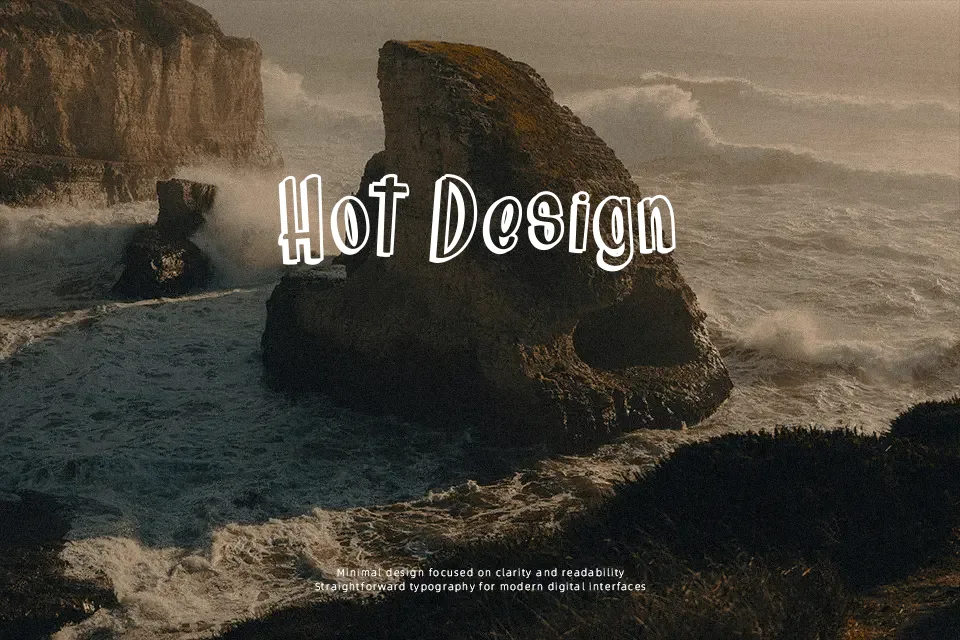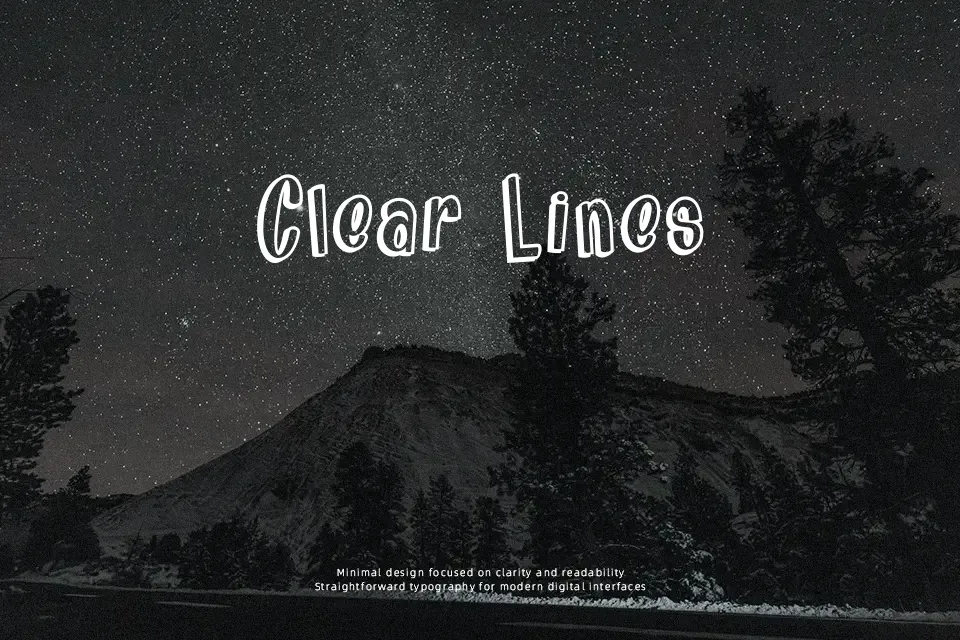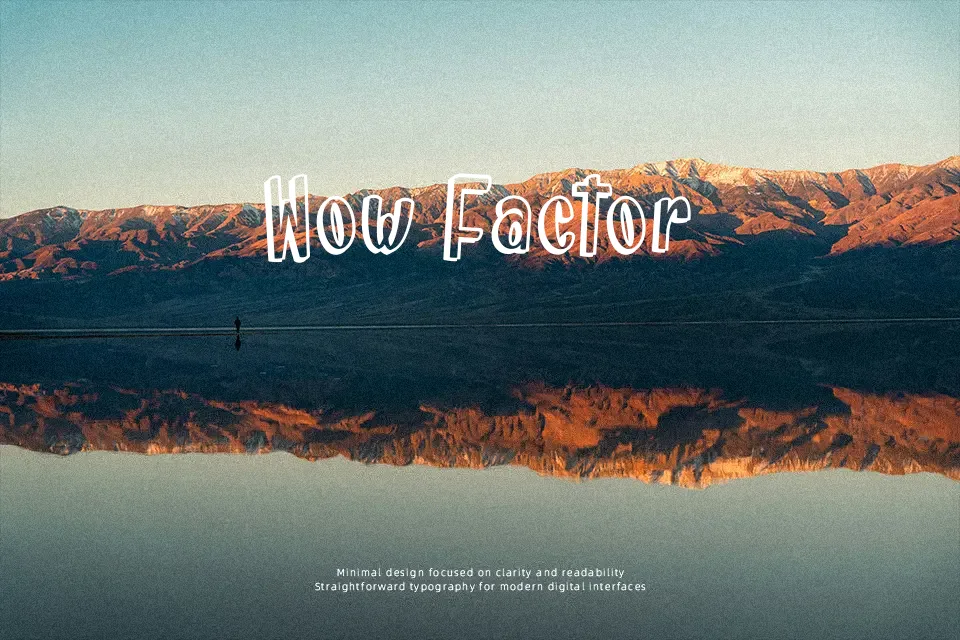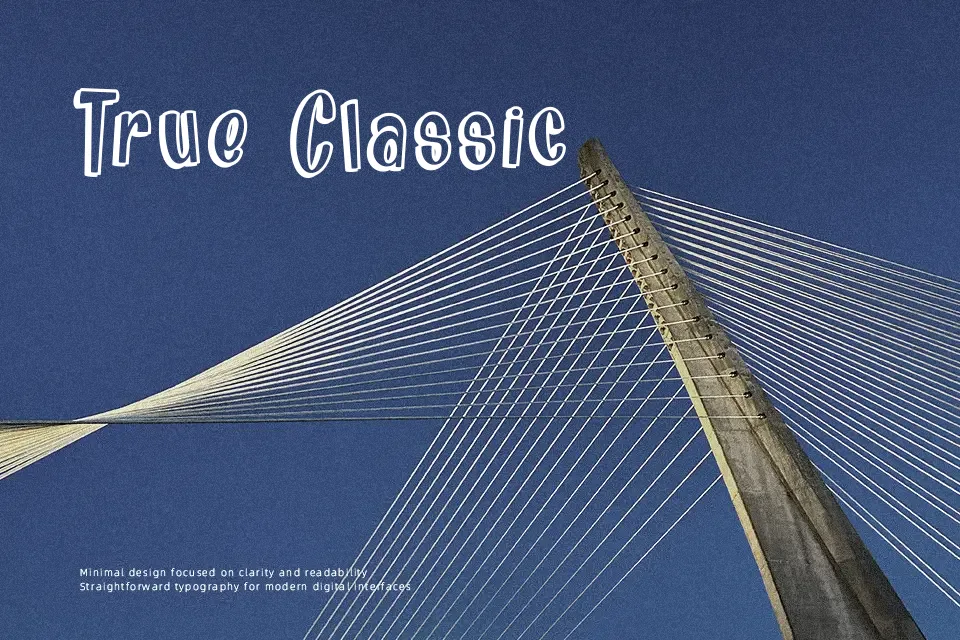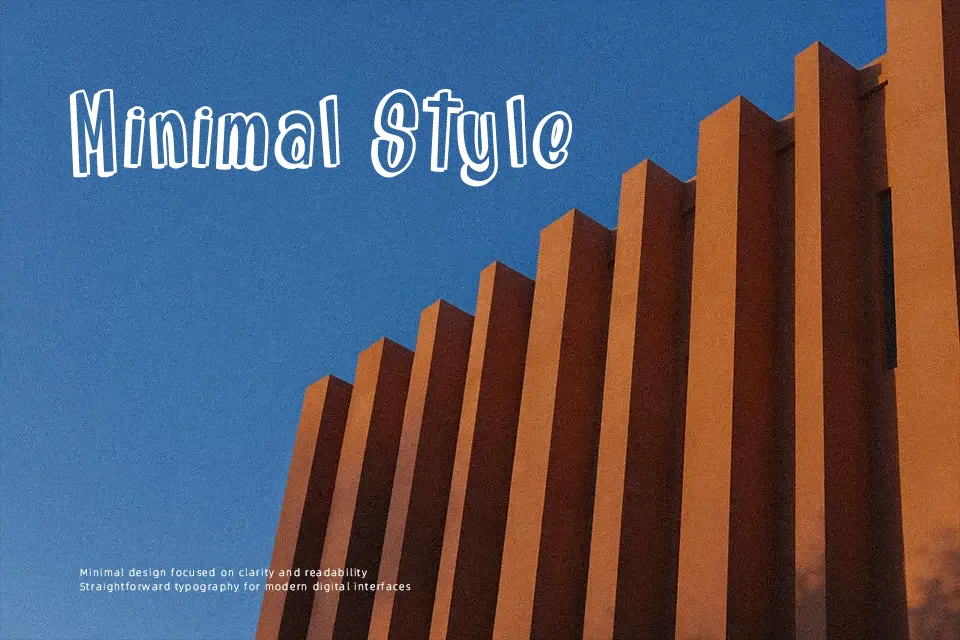
Brainfish Font
Designed by dcoxy - Greg Medina
Brainfish is a bold, hand-drawn display font with rounded terminals, uneven strokes, and slightly loose spacing that gives lettering a bouncy, animated feel. Its shapes lean toward cartoon styling rather than strict geometry, so text looks relaxed and approachable rather than polished or corporate. This works well for kids’ event posters, playful product packaging, game titles, or social media graphics where personality matters more than precision. Because of its weight and informal construction, it struggles in small captions, long paragraphs, or serious editorial layouts where clarity and neutrality are critical. If you already use casual comic-style fonts, Brainfish sits in that same family but reads a bit more expressive and quirky than standard comic options.
kids event posters
playful product packaging
casual gaming or streamer graphics
lighthearted social media titles
body text or long reading
dense data charts or UI labels
serious editorial layouts
Perfect for gaming, kids, and packaging, with a artistic and cartoon style.